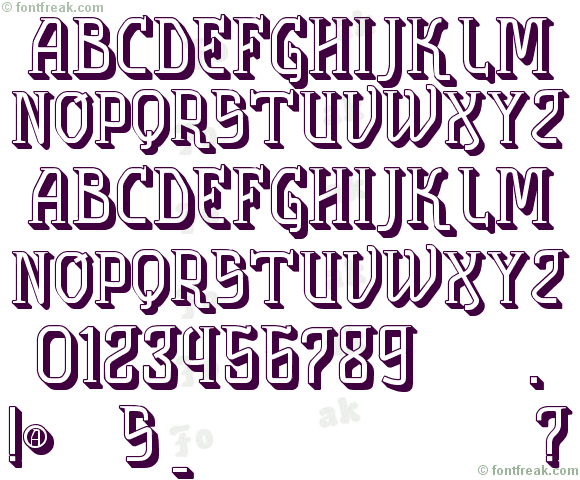
vtks solution 3d
vtks solution bold
vtks solution
The vtks solution 3d font by Douglas Vitkauskas is a striking display typeface that stands out with its bold and dynamic 3D effect. This font falls into the category of decorative typefaces, designed to make a statement in various creative applications. Its unique visual characteristics include a substantial stroke weight that conveys strength and presence, alongside a low contrast that enhances legibility while retaining an eye-catching aesthetic. The font features pronounced edges and a slight shadow effect, giving it depth and a sense of dimensionality.
Ideal for a range of use cases, the vtks solution 3d font excels in environments where visual impact is key. It is perfect for movie posters, where its boldness can capture attention and draw viewers in. Additionally, it can be effectively utilized for branding in the entertainment industry or in promotional graphics for events, allowing small business owners to create memorable marketing materials. Graphic designers may also find it suitable for creating eye-catching headlines in magazines or on websites, where a striking visual element is desired. Furthermore, its playful yet serious tone makes it a great choice for themed restaurant menus or food packaging that aims to attract diners.
What truly sets this font apart is its ability to combine boldness with versatility, enabling it to adapt to various creative contexts while maintaining a distinctive flair. Whether used for digital or print, the vtks solution 3d font offers a unique touch that can transform ordinary text into captivating visuals.